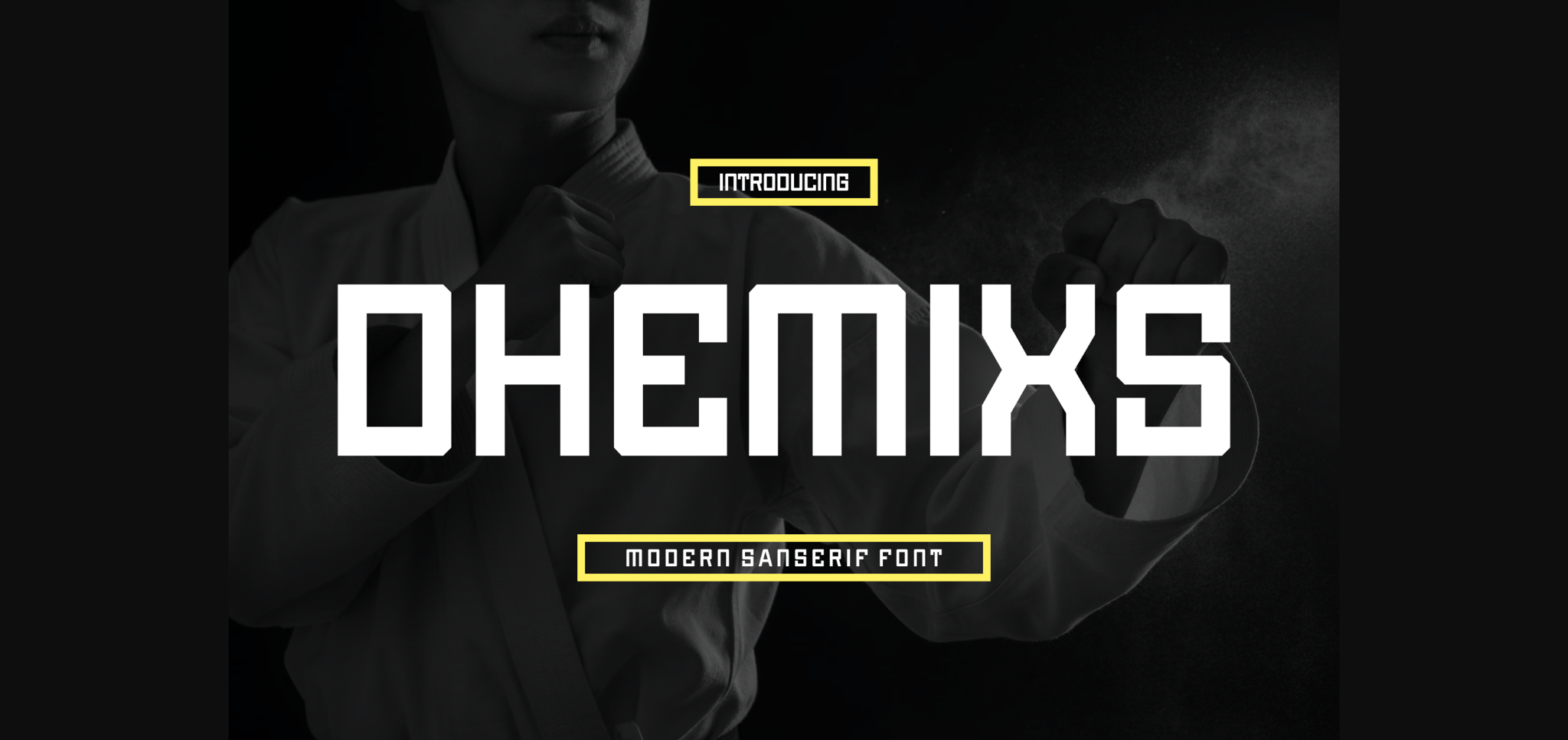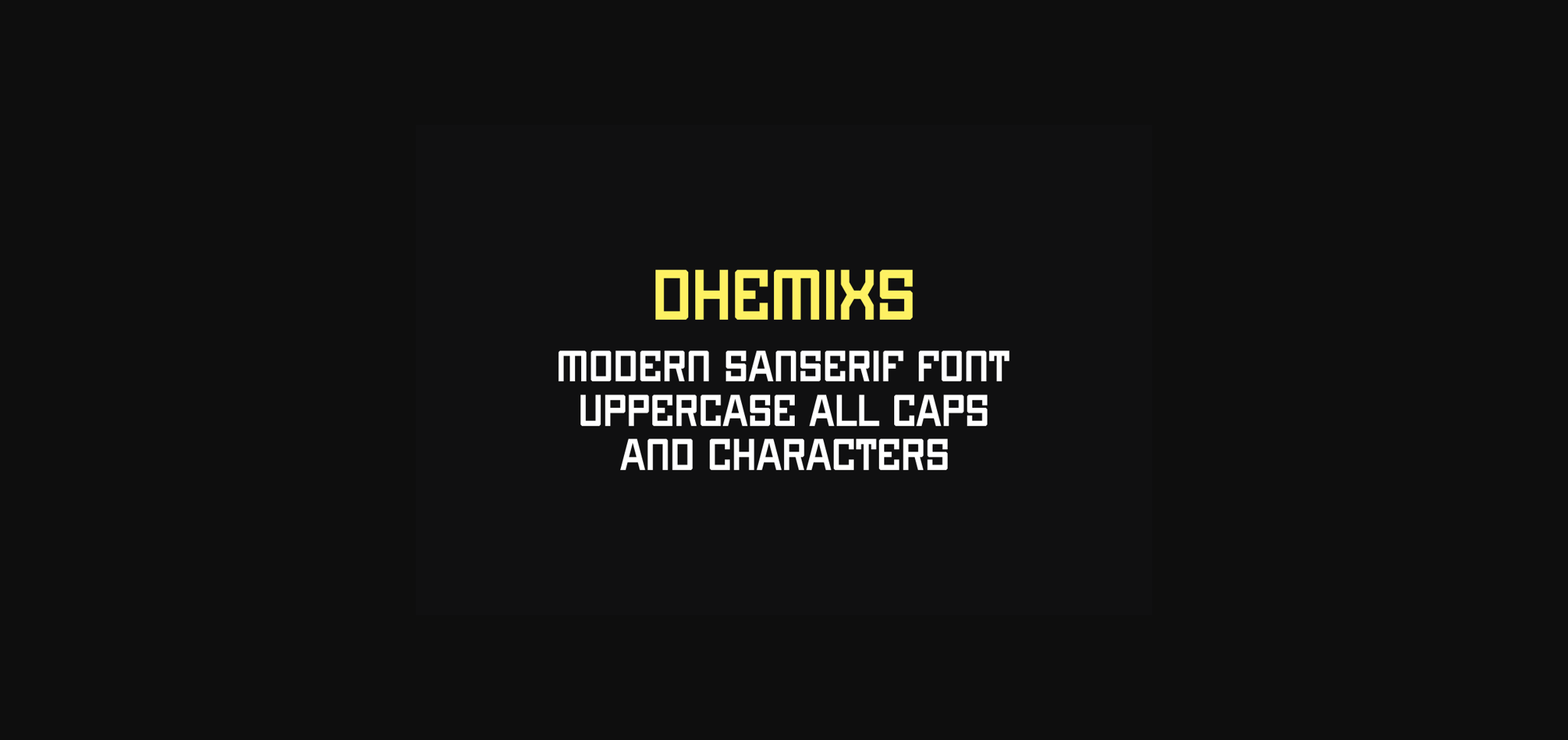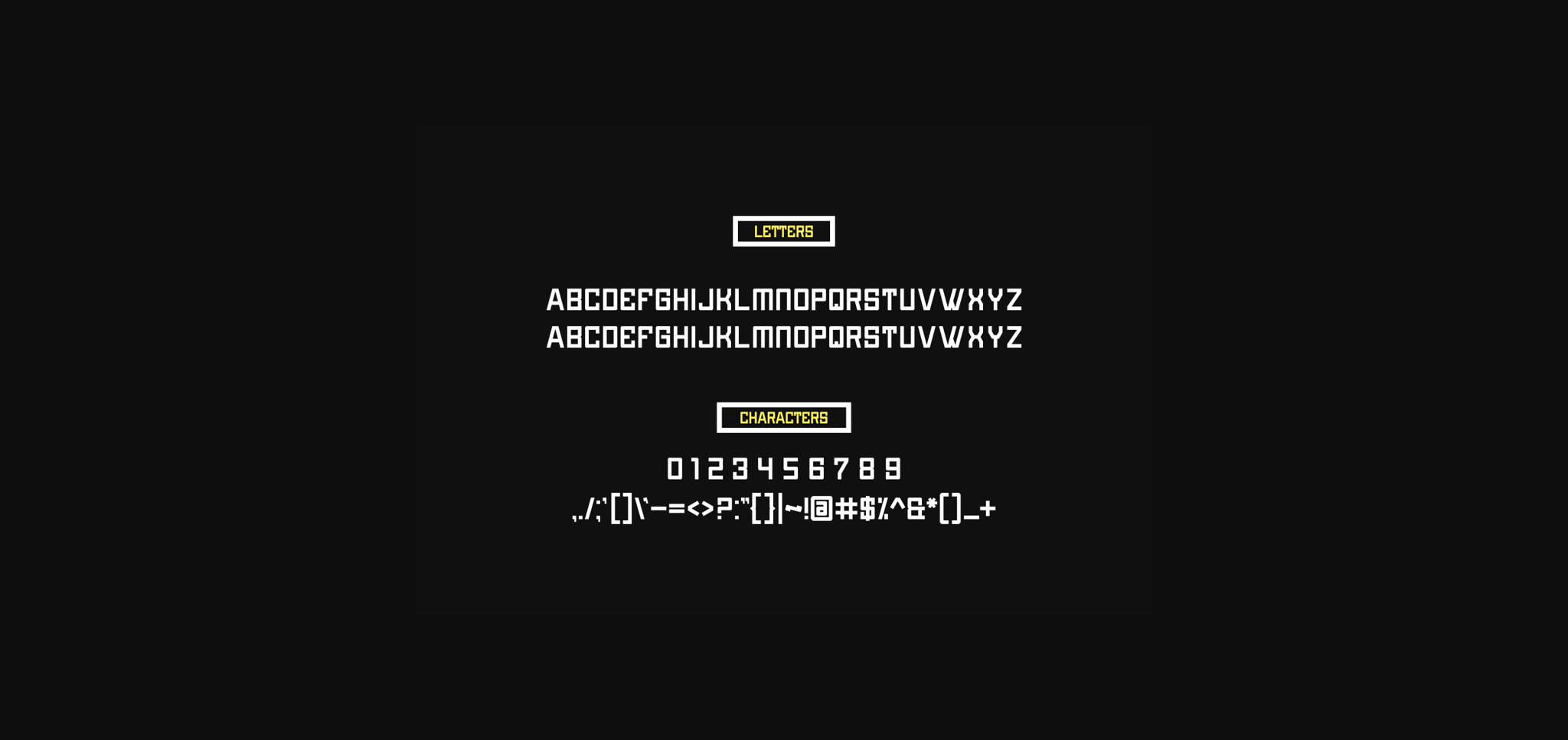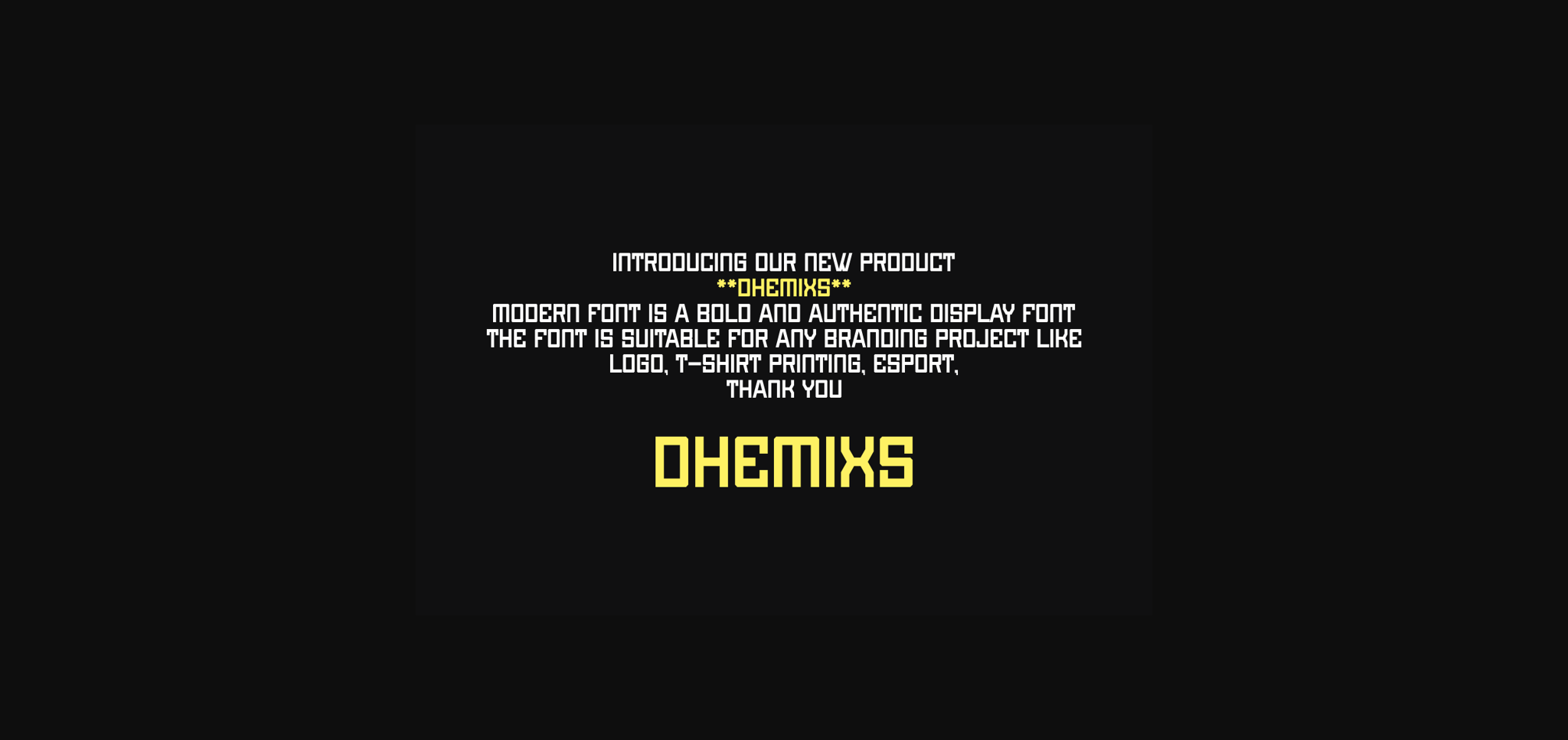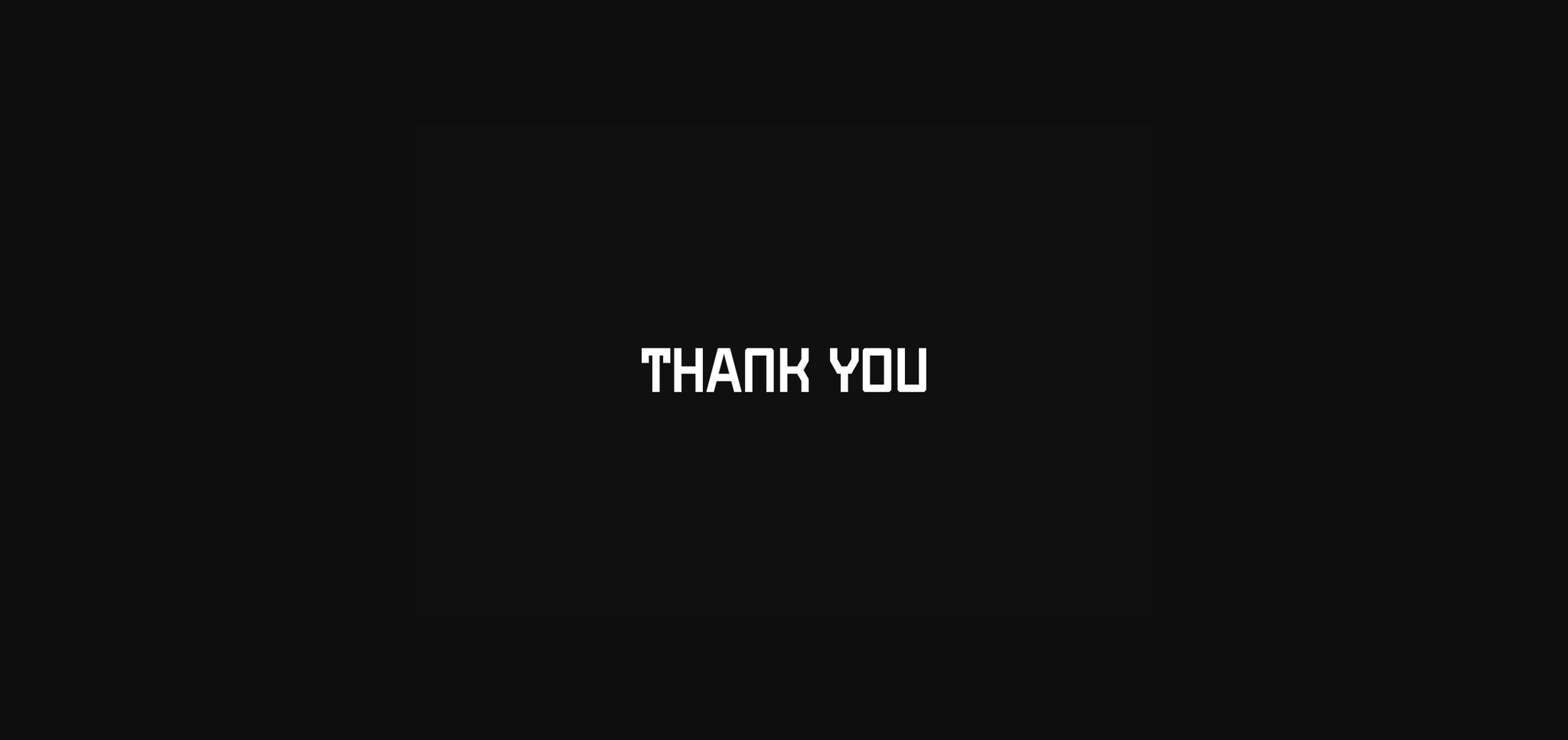
Dhemixs Font
About Dhemixs Font
Introducing our new product **Dhemixs Font** – Modern Font
**Dhemixs Font** – Modern Font is a bold and authentic display font. The font is suitable for any branding project like logo, esport, and many more. outstanding in a wide range of contexts.